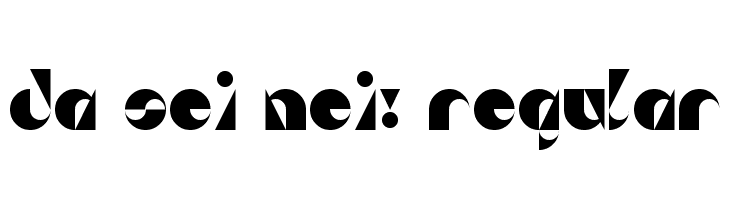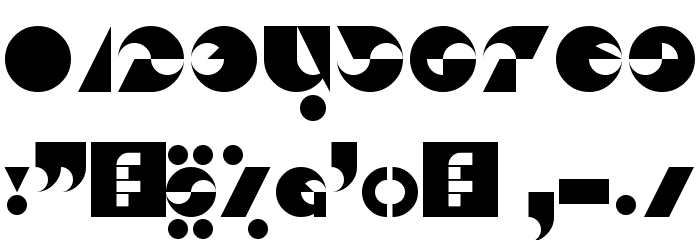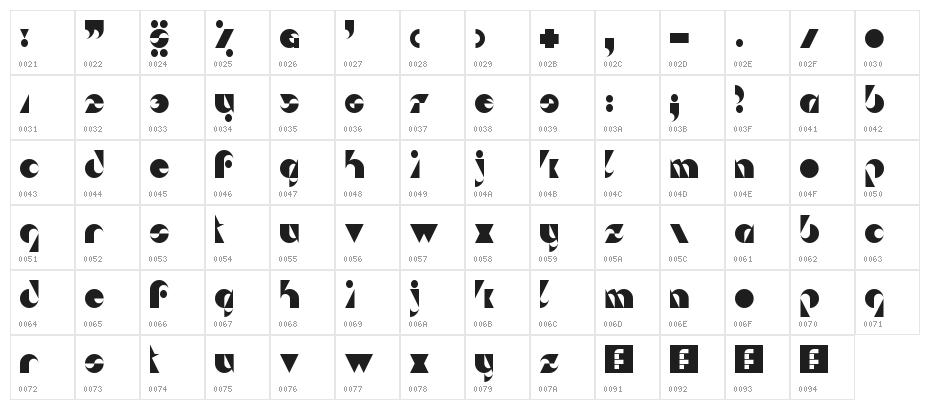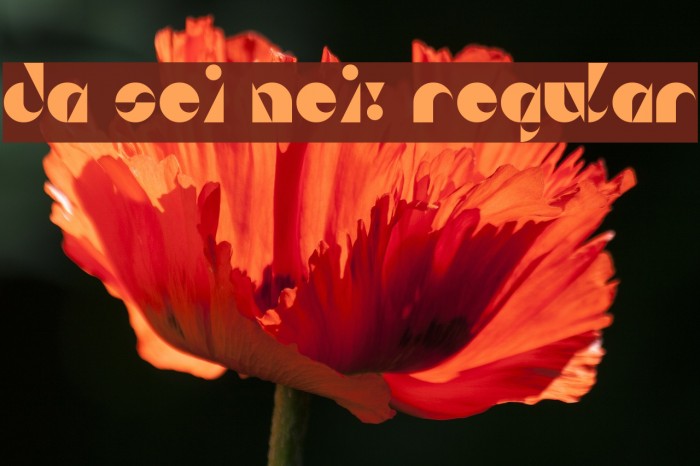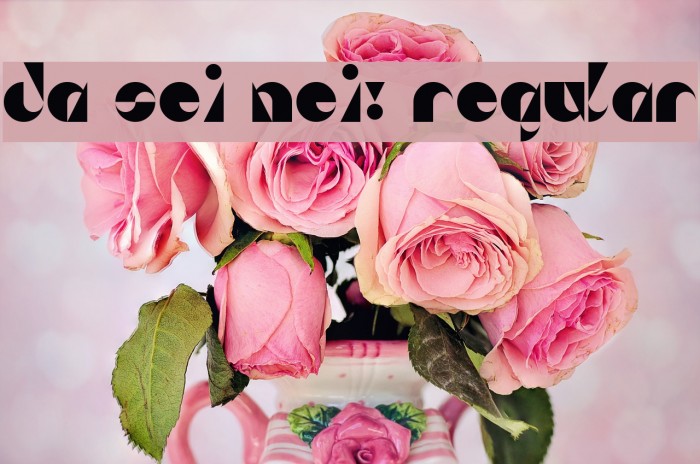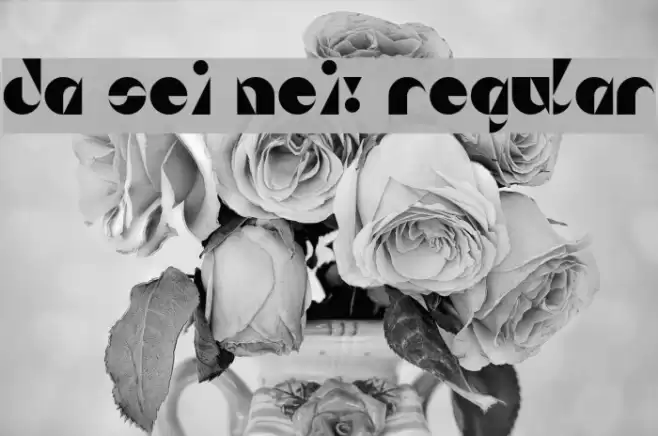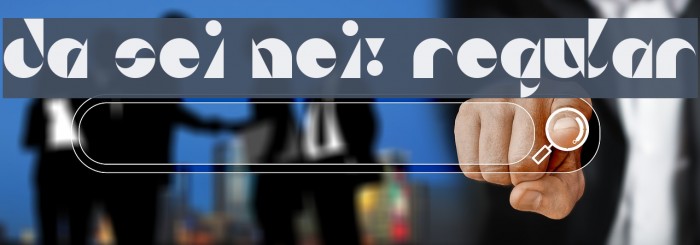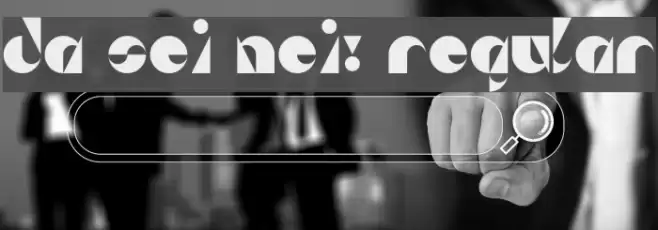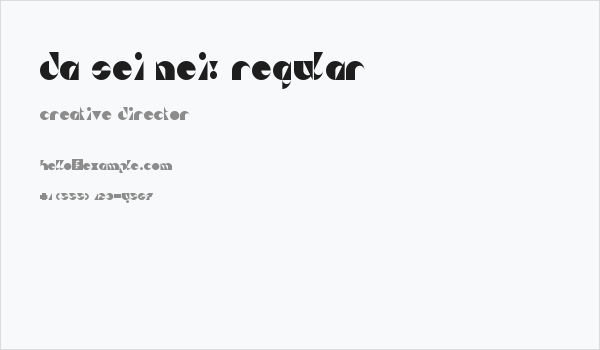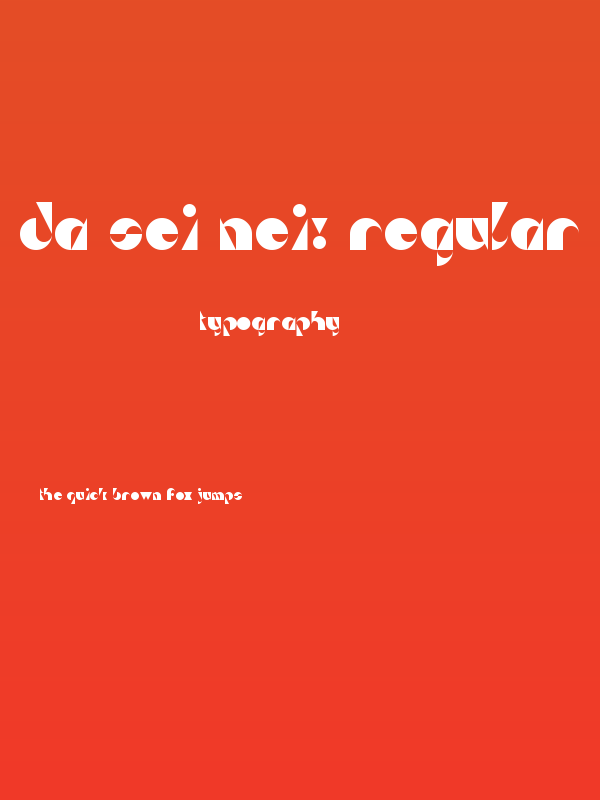
Da Sei Nei! Regular Font
Da Sei Nei! Regular Description
This font features a highly geometric and abstract design, characterized by bold, solid shapes and a unique interplay of positive and negative space. Each character is crafted with a combination of circular and triangular elements, creating a visually striking and modern appearance. The font's distinct style is achieved through the use of sharp angles and smooth curves, resulting in a dynamic and artistic look. The uppercase and lowercase letters maintain a consistent design language, while the numerals and special characters follow the same geometric theme. This font is ideal for projects that require a contemporary and avant-garde aesthetic.
| Use Case | Logos, Headlines, Posters |
| Proposed Projects | Ideal for branding, posters, album covers, and any project seeking a modern, artistic touch. |